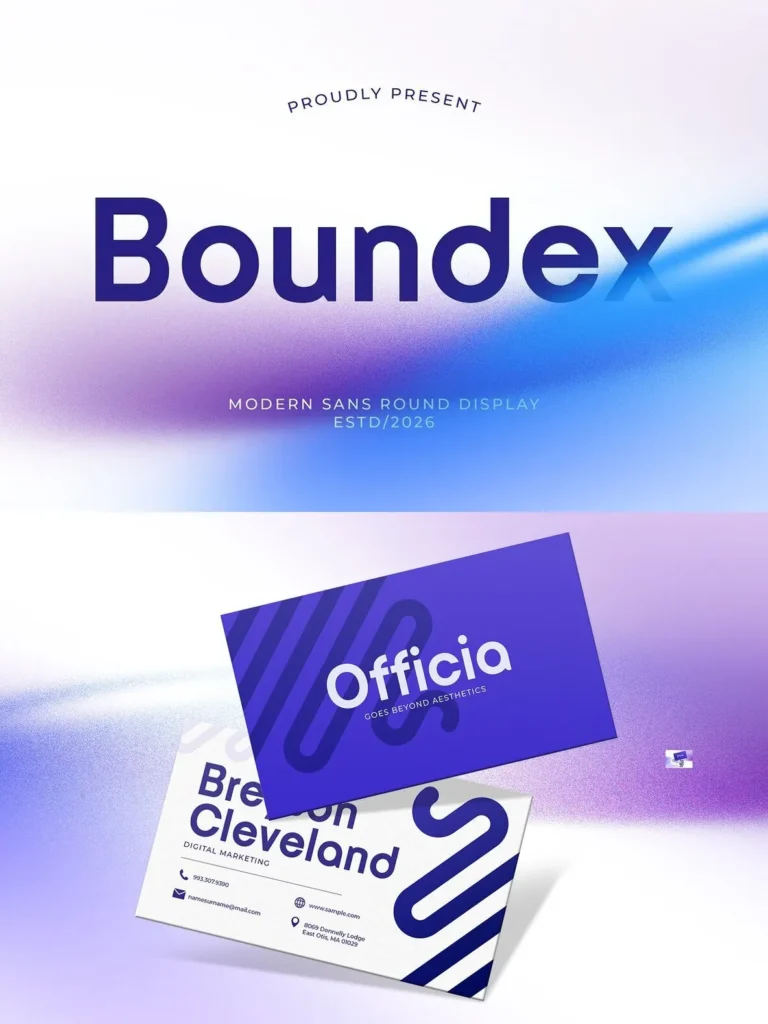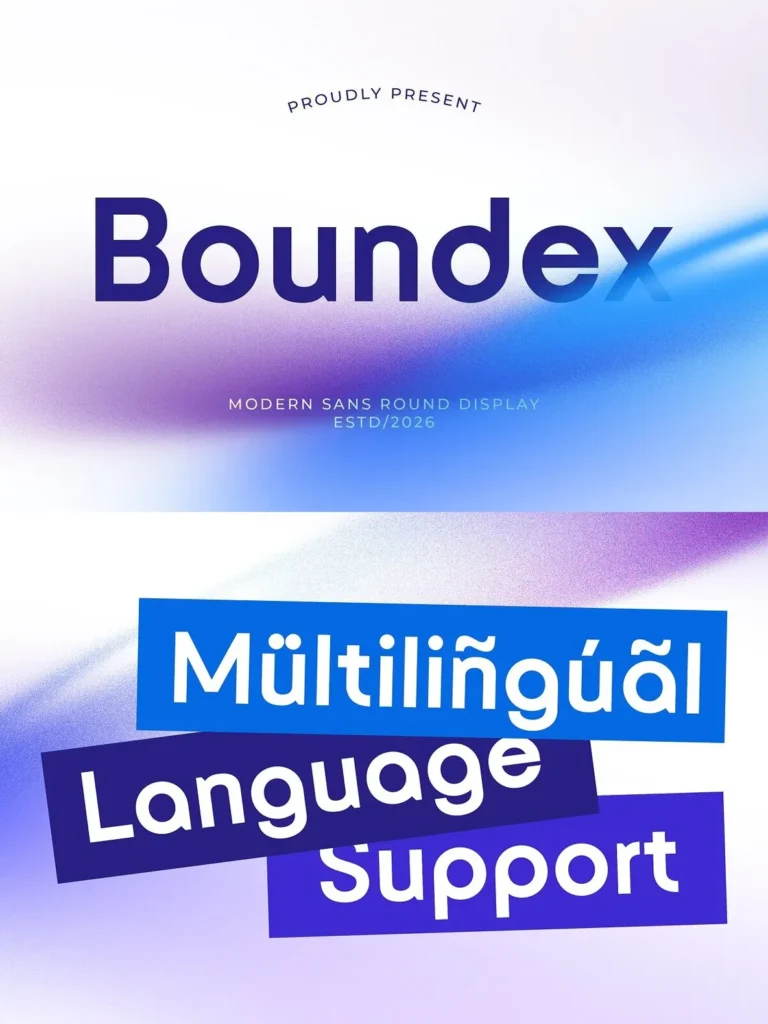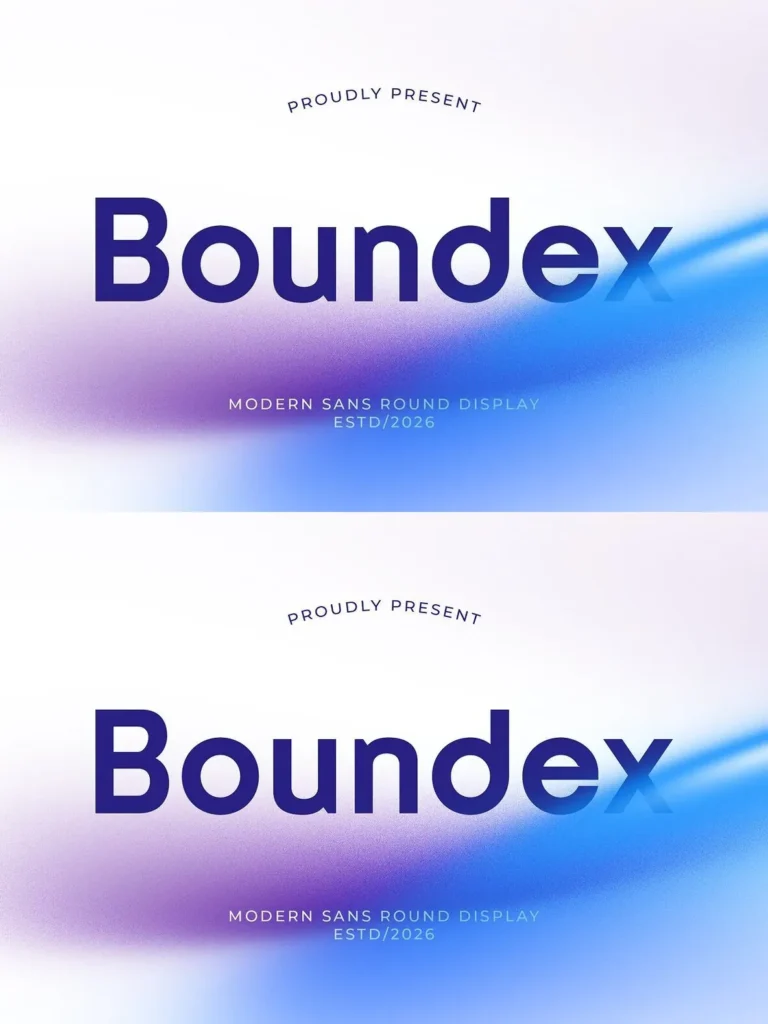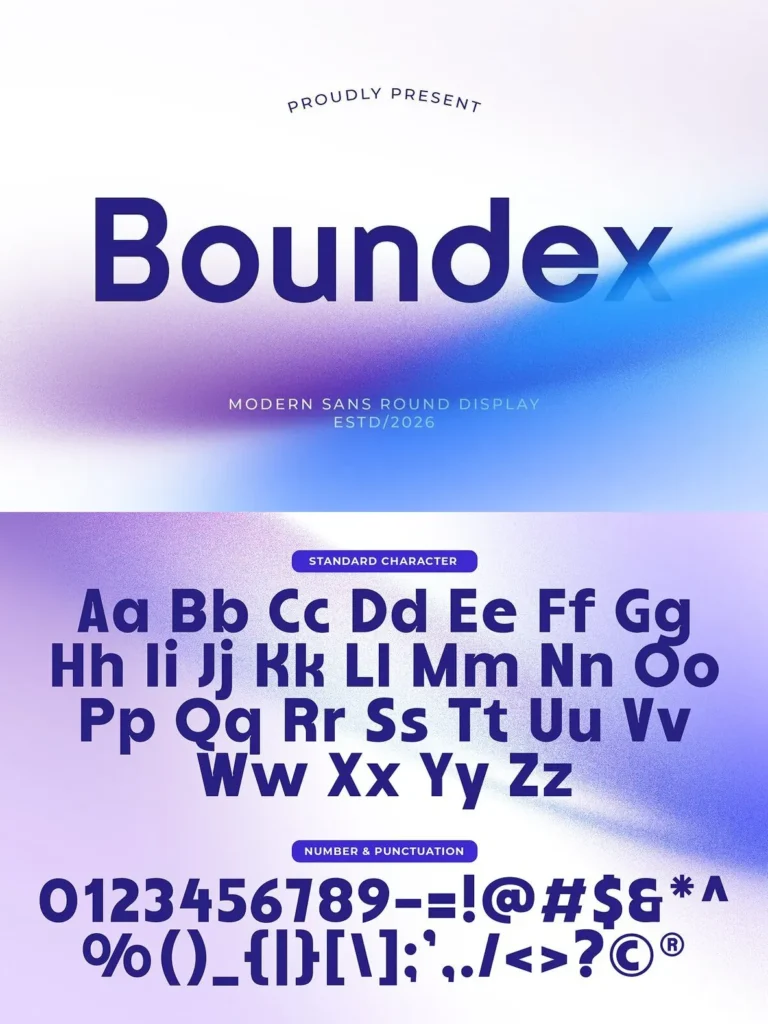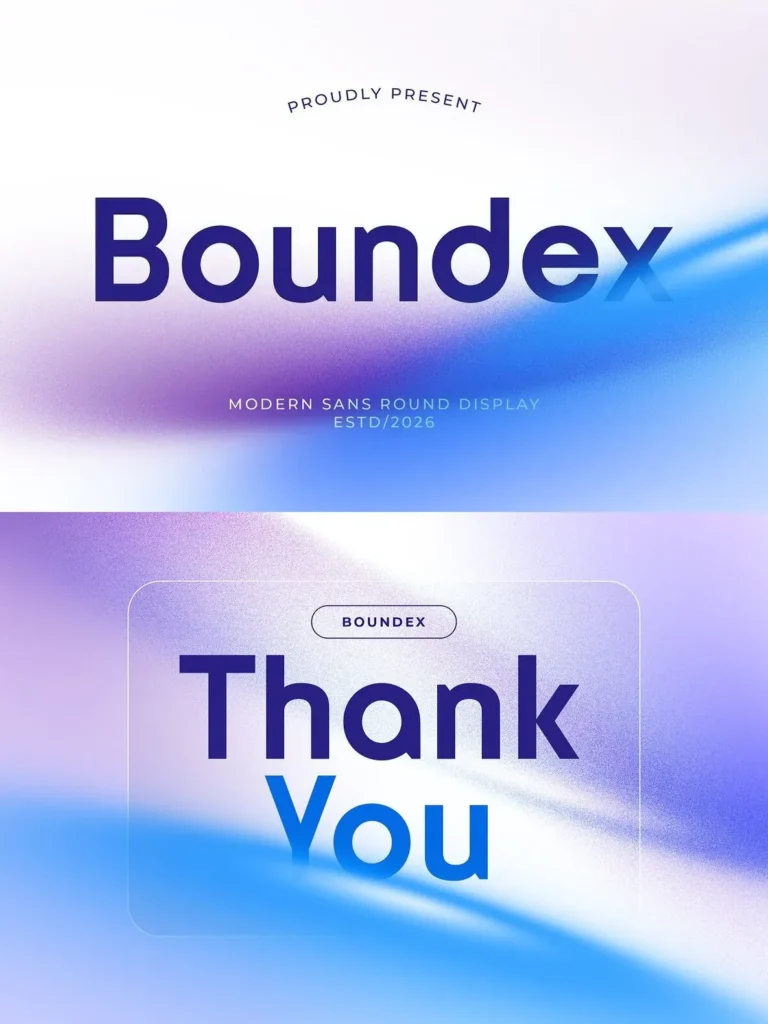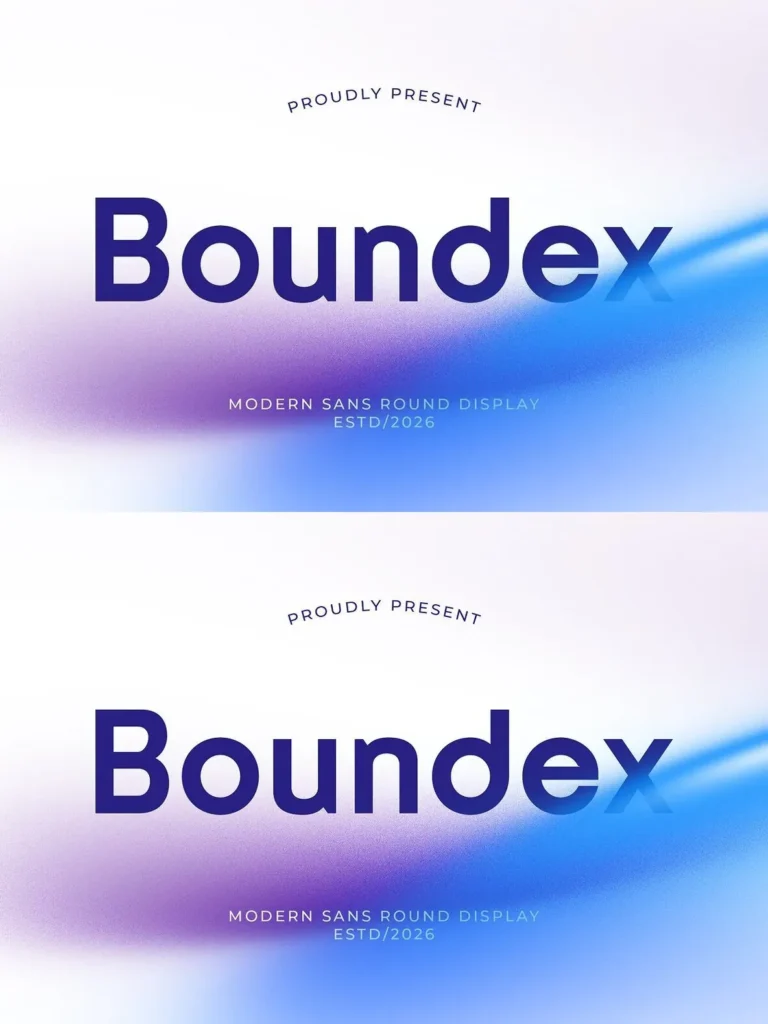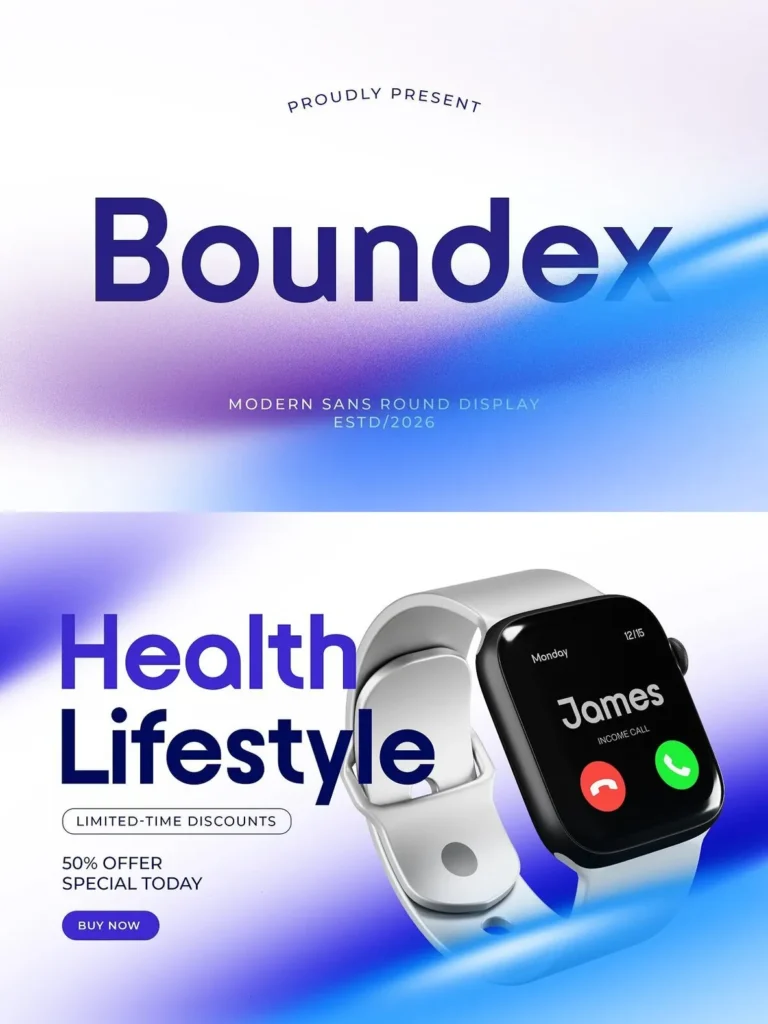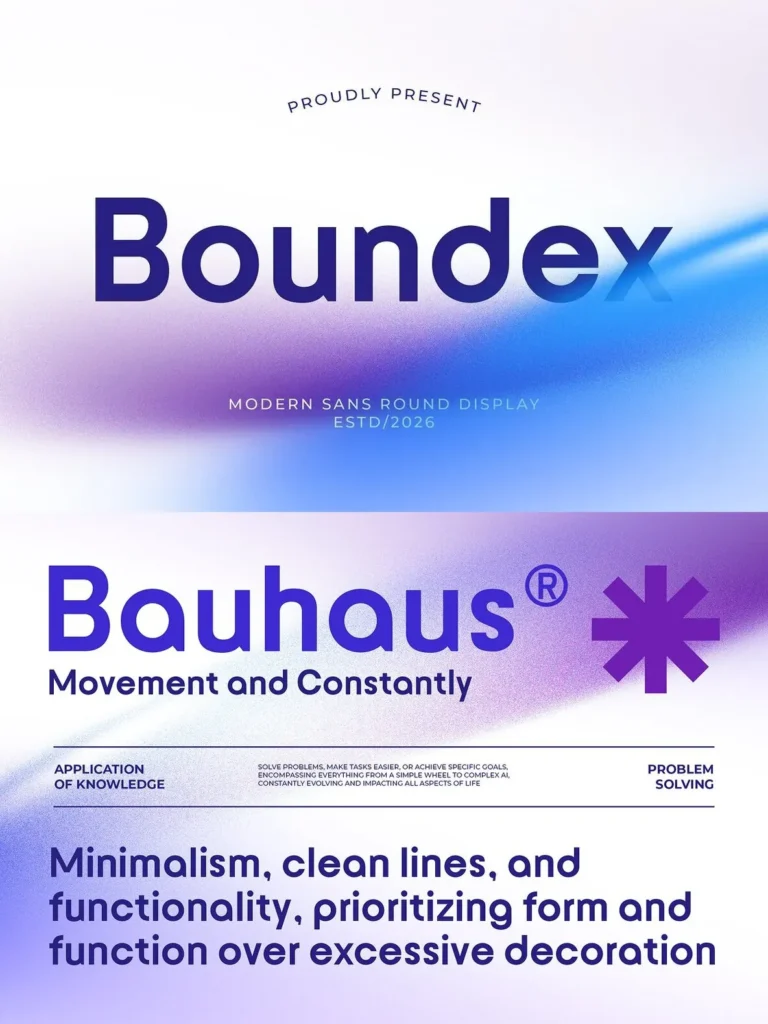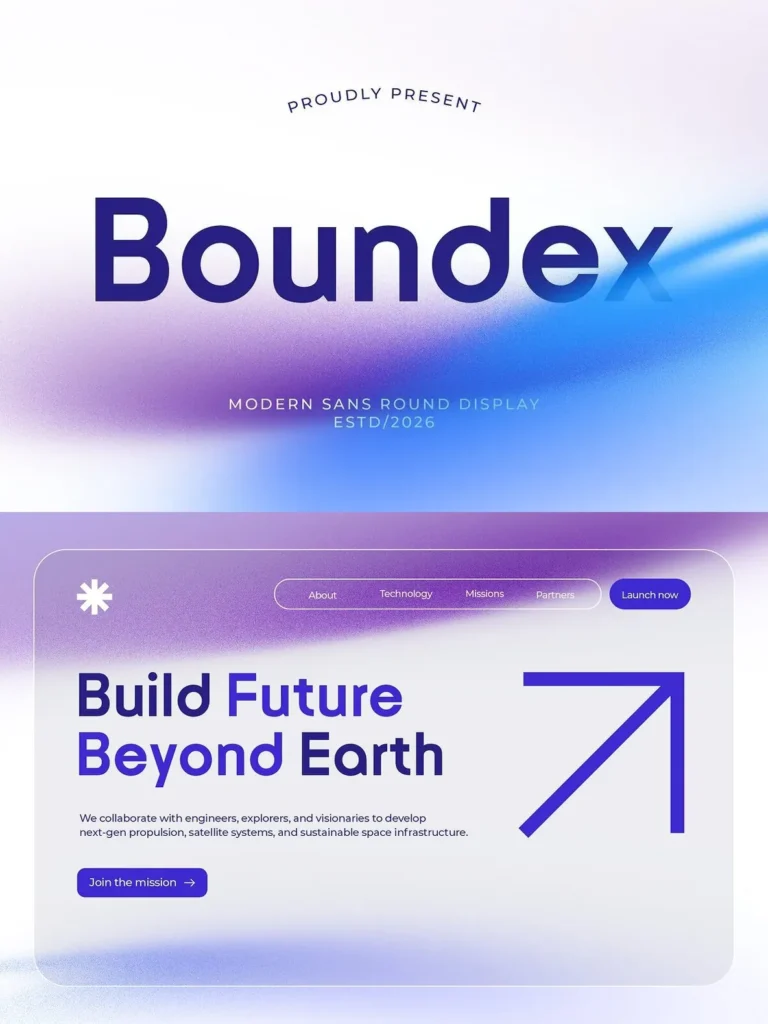
Boundex — Bold Presence, Refined Form
Boundex is a modern display typeface with a strong personality and clear visual impact. Its confident letterforms and contemporary structure give the font a bold yet refined aesthetic, suited to design work that needs immediate presence without losing balance.
Ideal for logo design, branding identity, posters, advertising, packaging, and social media graphics, Boundex brings clarity, balance, and distinctive style to every character. Its robust shapes and modern proportions make it especially effective for impactful headlines and brand-focused typography, helping designs stand out with sophistication and style.